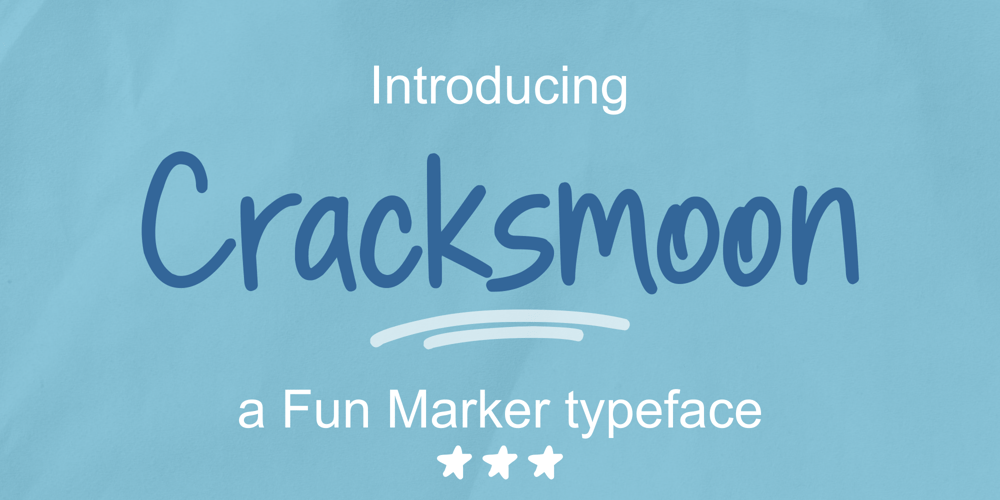
Cracksmoon
Cracksmoon font
Cracksmoon Font Family was designed by Zamjump and published by Zamjump. Cracksmoon contains 1 styles and family package options. Cracksmoon was hand-drawn with a marker pen and converted to font – and like the marker, it has natural edges and realistic shapes. Includes bonus ligatures and style swashes. Perfect for designs where you need a font that’s a little rougher around the edges.Including :AlternateMultilingual support